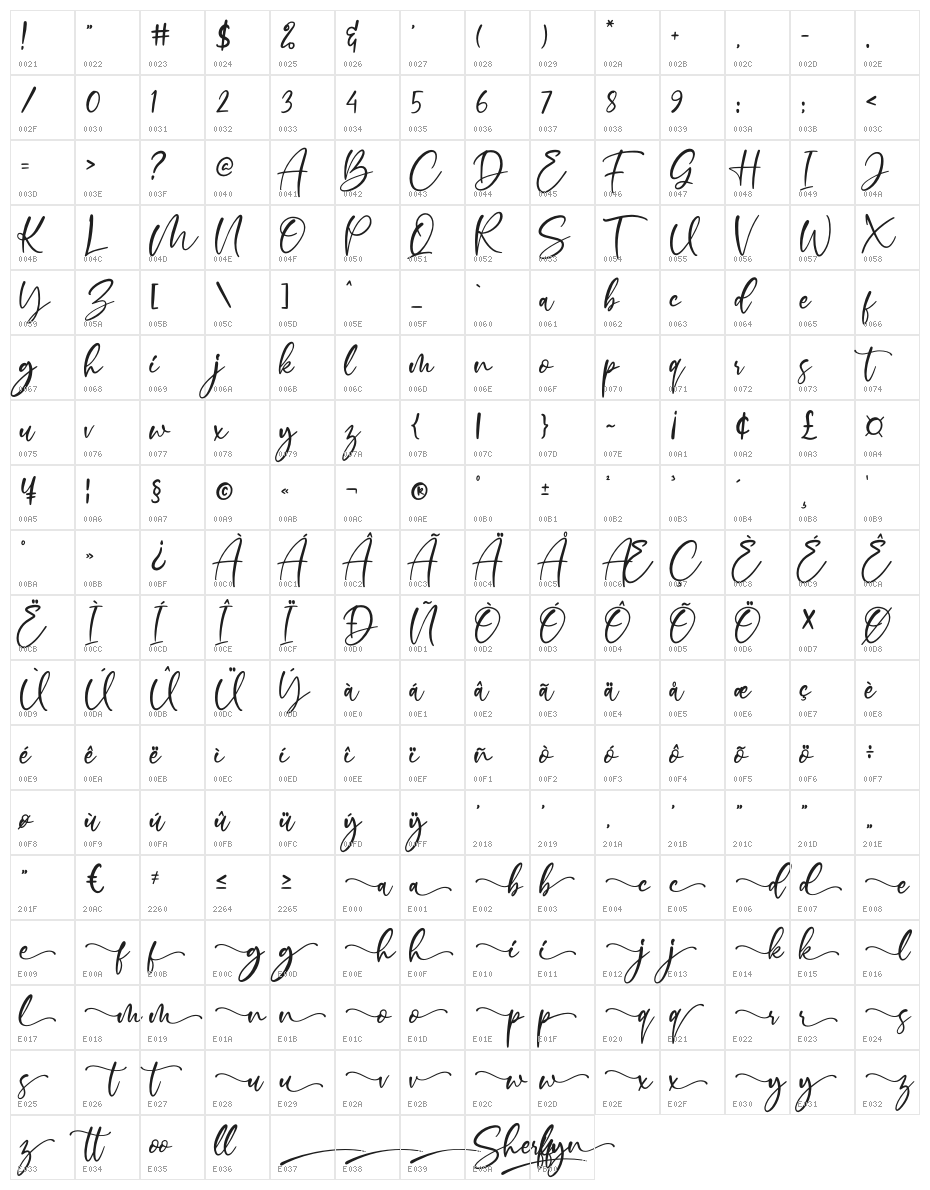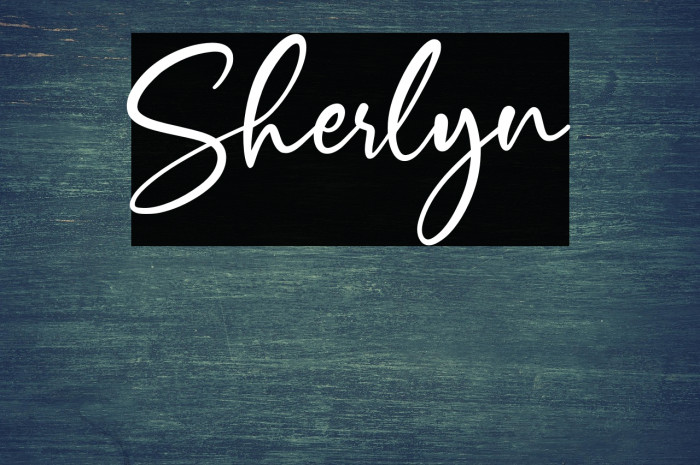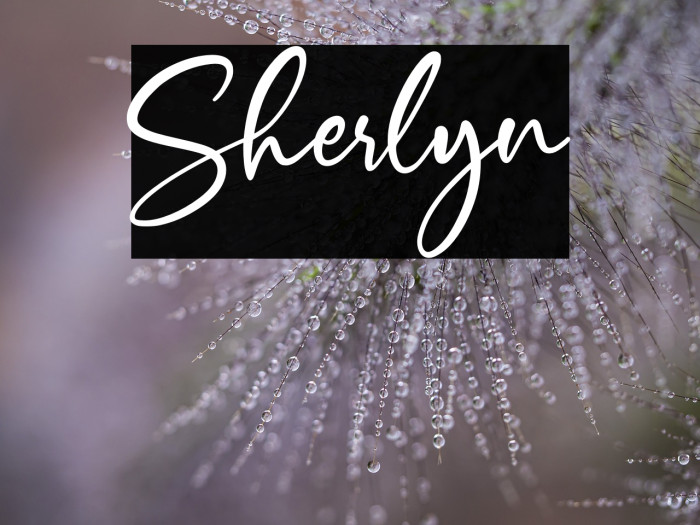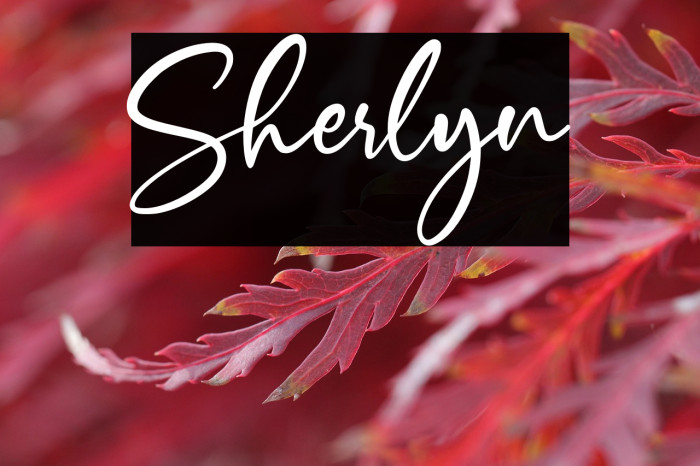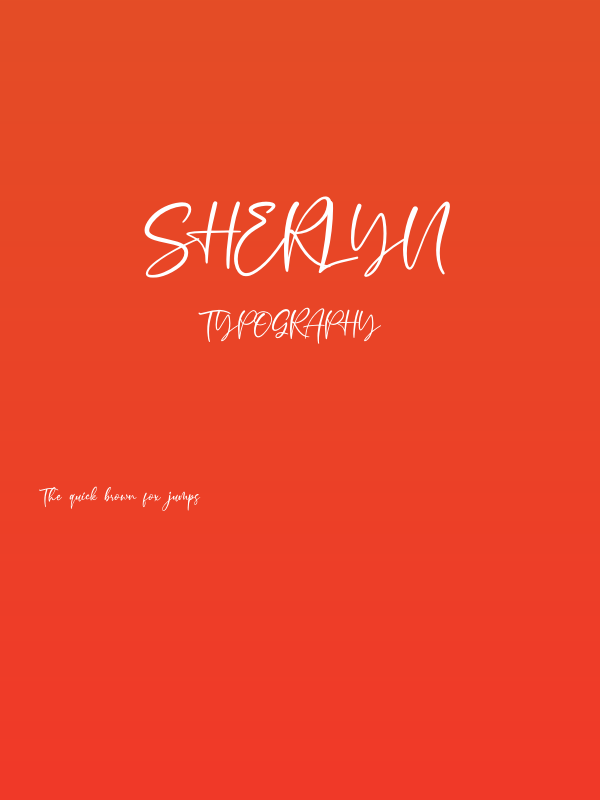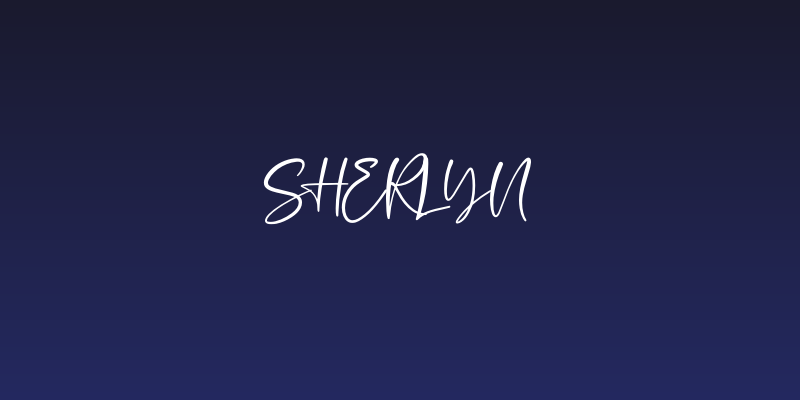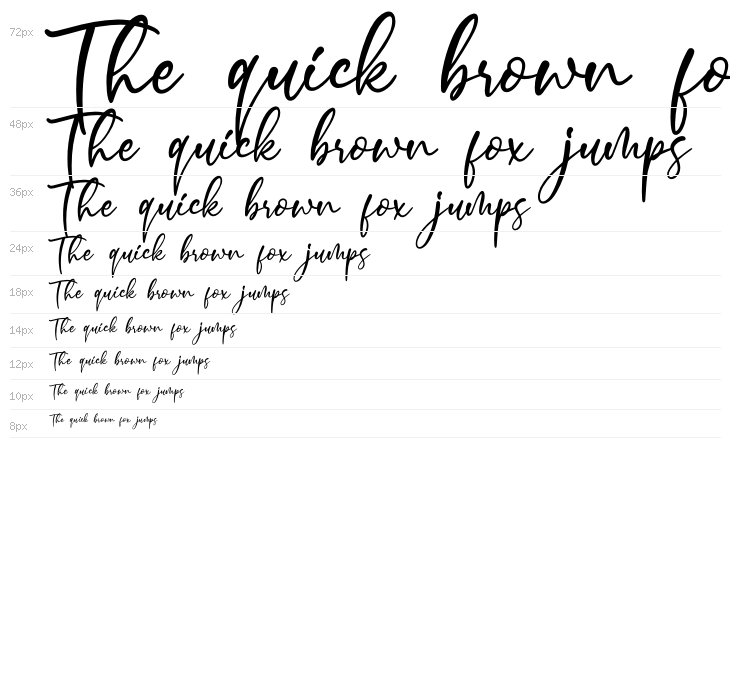
Sherlyn Font
Sherlyn Description
This font exudes a modern and elegant handwritten style, characterized by its fluid and cursive letterforms. The uppercase letters are tall and slender, with a slight slant that adds a dynamic feel. Lowercase letters are more rounded and connected, enhancing the script-like appearance. The numerals are consistent with the overall style, maintaining a smooth and flowing look. Special characters are designed with the same attention to detail, ensuring they blend seamlessly with the alphabet. This font is perfect for projects that require a personal and sophisticated touch.
| Proposed Projects | Ideal for wedding invitations, greeting cards, branding, and social media graphics. |